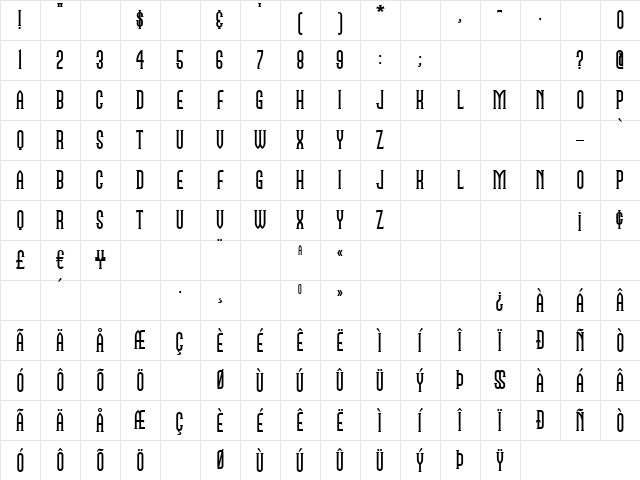
NamesakeNF Regular
Design Context for NamesakeNF
NamesakeNF is a composed and adaptable typeface that performs quietly and consistently across a wide range of design contexts.